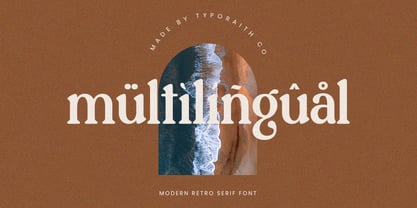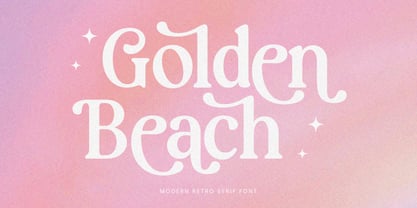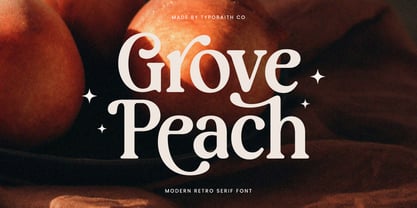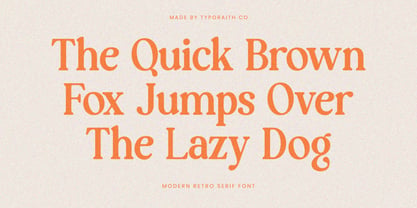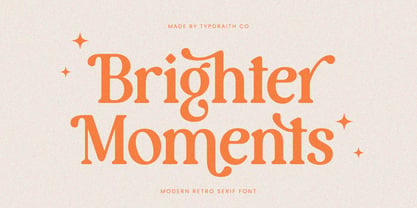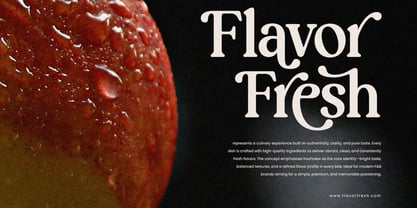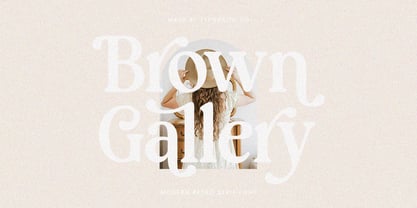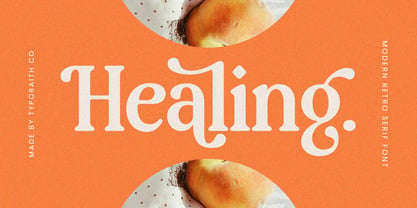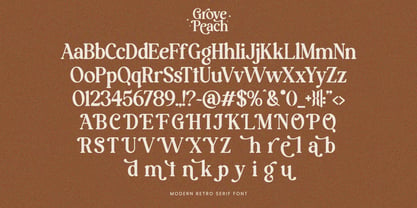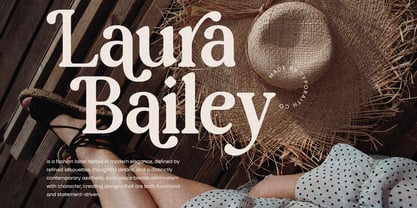
Grove Peach
by Typoraith Co
The Grove Peach Font Family was designed by Rendy Riyananda and published by Typoraith Co. Grove Peach contains 1 styles.
Grove Peach is a modern retro serif font designed to bring warmth, charm, and nostalgic elegance to your creative projects. With its soft curves, high-contrast strokes, and signature vintage flair, this typeface is perfect for designers seeking a stylish blend of retro aesthetics and contemporary sophistication.
- Full uppercase & lowercase
- Numbers & punctuation
- Smooth kerning for professional layouts
- Alternates
The smooth curves and playful serif details give Grove Peach a distinctive personality—inviting, elegant, and expressive. Whether you’re building a cozy lifestyle brand or a modern boutique identity, this font elevates any visual direction with a timeless retro mood.